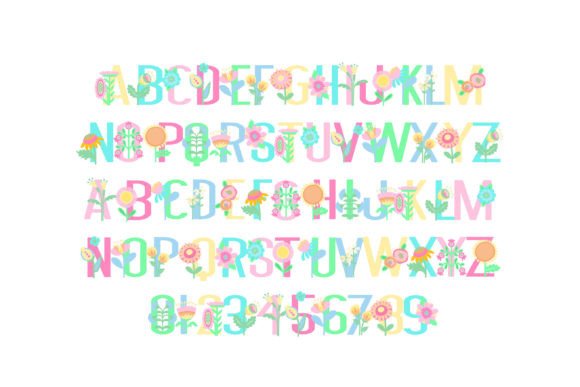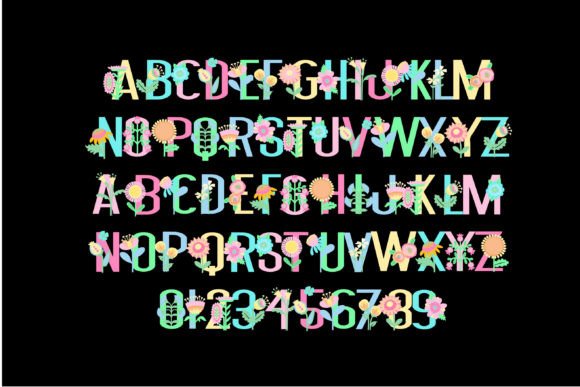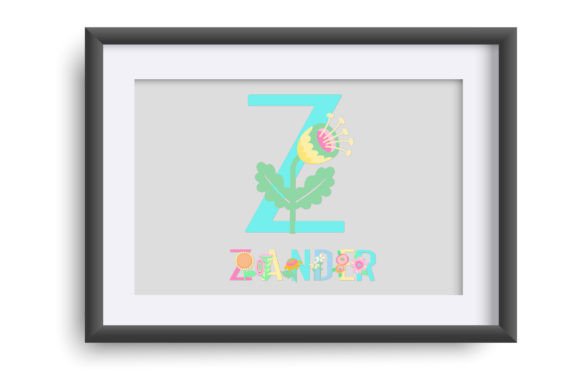
Introduction to Colorful Life Too Font
Introducing Colorful Life Too an exquisite floral color font.
Each letter is a masterpiece of intricate floral patterns and rich hues, perfect for adding a touch of sophistication and allure to your designs Elevate your projects with this stunning and captivating font, ideal for invitations, cards, posters, and other creative endeavors.